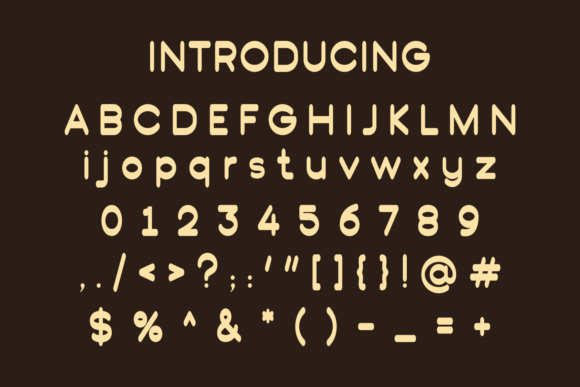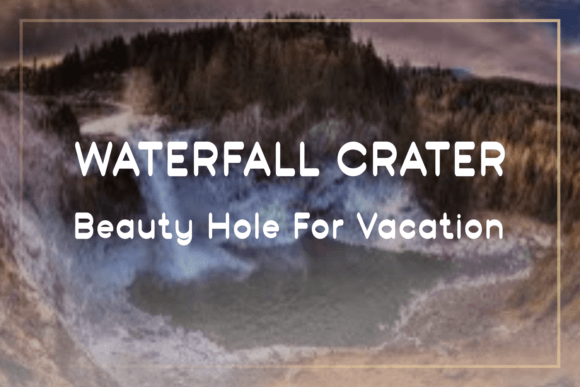
Introduction to Megumy Font
Remember the moment when a single design element completely transforms your creative project? For many designers, that moment is often sparked by discovering the perfect font. And for those who have been searching for the perfect sans serif companion, we’re excited to introduce you to the Megumy Font – a cool and unique design resource that’s sure to elevate your next project.
Whether you’re working on a logo, a brochure, or a digital graphic, the Megumy Font is a high-quality addition to your design library. Its neatly crafted and highly detailed design makes it a versatile choice for a wide range of creative applications, from print materials to digital displays. Plus, with a transparent background, you can easily integrate it into your design without any distractions.
Key Features of Megumy Font
- Designed with a unique, modern aesthetic that sets it apart from other fonts
Honest Review: Megumy Font
I recently stumbled upon the Megumy Font while searching for a free download to enhance my creative project. I was thrilled to find this high-quality design resource, perfect for designers looking for a unique touch.
What works well: ✨ The Megumy Font boasts a transparent background, allowing for seamless integration with any design element. The font’s sleek and modern design makes it an excellent choice for a variety of creative projects, from branding to digital art.
- Unique and modern aesthetic
What doesn’t work well: ⚠️ Unfortunately, the font’s limited character set may be a concern for some designers. Additionally, the font may not be compatible with all software or platforms, which could be a limitation for some users.
Overall, I’m impressed with the Megumy Font. While it has some limitations, its unique design and high-quality features make it a valuable addition to any designer’s toolkit. If you’re looking for a free download to enhance your creative project, the Megumy Font is definitely worth checking out.